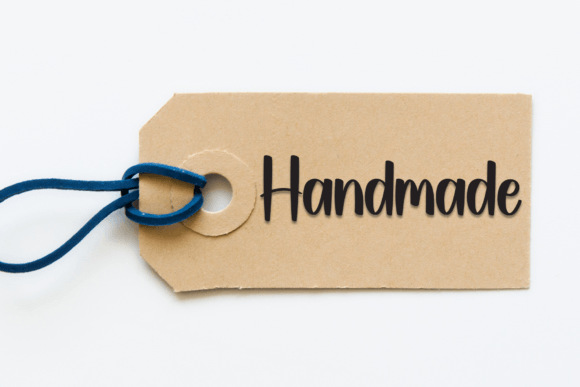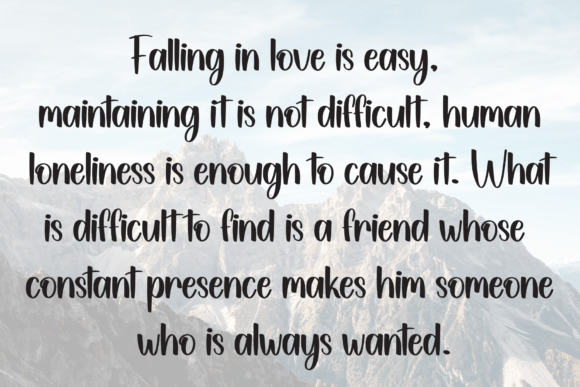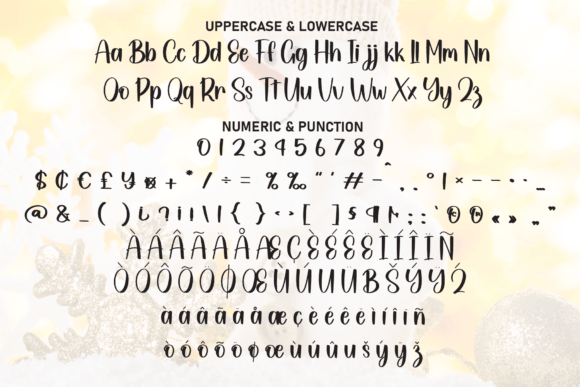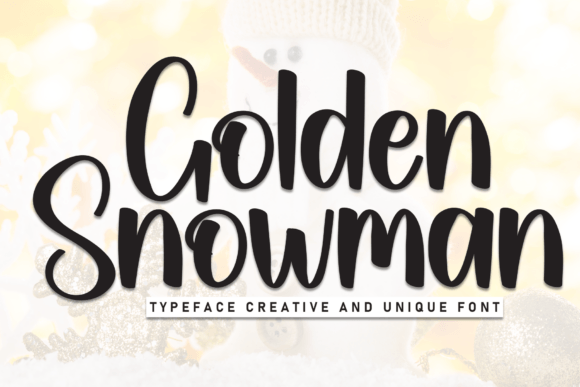
Introducing the Golden Snowman Font: A Delightful Handwritten Display Font
Are you looking for a font that embodies sweetness and friendliness? Do you want to add a touch of whimsy to your wedding invitations, greeting cards, or designs? Look no further than the Golden Snowman Font! This adorable handwritten display font is perfect for designers and crafters who want to create captivating and heartwarming atmospheres through text.
The Charm of Golden Snowman Font
The Golden Snowman Font is a unique and charming font that is sure to delight. Its fun and elegant demeanor make it perfect for a variety of design projects, from wedding invitations and greeting cards to posters and social media graphics. With its handwritten feel, this font brings a personal touch to any design, making it stand out from the crowd.
Perfect for Whimsical Designs
The Golden Snowman Font is designed to add a touch of whimsy to your designs. Its playful and friendly feel makes it perfect for projects that require a lighthearted and joyful approach. Whether you’re designing a wedding invitation, a greeting card, or a poster, this font is sure to bring a smile to your audience’s face.
Key Features of Golden Snowman Font
- Handwritten feel: The Golden Snowman Font has a unique handwritten feel that gives it a personal touch.
- Sweet and friendly: This font embodies sweetness and friendliness, making it perfect for designs that require a warm and welcoming approach.
- Fun and elegant: The Golden Snowman Font has a fun and elegant demeanor that makes it perfect for a variety of design projects.
- Perfect for whimsical designs: This font is designed to add a touch of whimsy to your designs, making it perfect for projects that require a lighthearted and joyful approach.
Uses for Golden Snowman Font
The Golden Snowman Font is versatile and can be used for a variety of design projects, including:
- Wedding invitations: Add a touch of whimsy and romance to your wedding invitations with this beautiful font.
- Greeting cards: Create heartwarming greeting cards for special occasions, such as birthdays, holidays, and anniversaries.
- Posters and social media graphics: Use the Golden Snowman Font to create eye-catching posters and social media graphics that are sure to grab attention.
- Crafting projects: This font is perfect for crafters who want to add a personal touch to their projects, such as scrapbooking, journaling, and card making.
Tips for Using Golden Snowman Font
Here are some tips for using the Golden Snowman Font:
- Pair with other fonts: Pair the Golden Snowman Font with other fonts to create a unique and interesting design.
- Use for headlines and titles: Use this font for headlines and titles to add a touch of whimsy and personality to your design.
- Experiment with colors: Experiment with different colors to find the perfect combination that matches your design.
The Golden Snowman Font is a delightful handwritten display font that is perfect for designers and crafters who want to add a touch of whimsy to their designs. With its sweet and friendly feel, this font is sure to bring a smile to your audience’s face. Whether you’re designing a wedding invitation, a greeting card, or a poster, this font is sure to make your design stand out from the crowd.